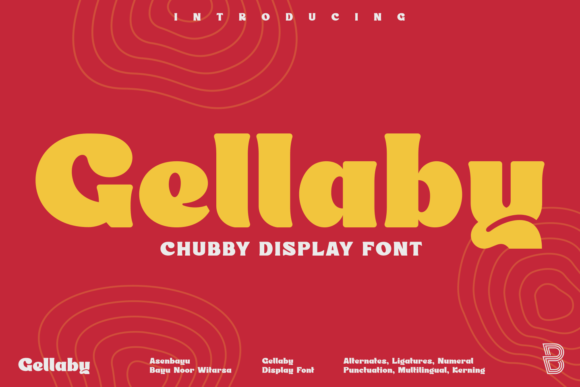
Gellaby Font: The Ultimate Bold Semi-Serif Display Font for Creative Designs
Are you looking for a font that can add a touch of uniqueness and playfulness to your designs? Look no further than the Gellaby font. This bold semi-serif display font is perfect for creating retro, vintage, modern, and playful designs that stand out from the crowd. In this article, we’ll explore the features and benefits of the Gellaby font, and how you can use it to take your designs to the next level.
What is Gellaby Font?
Gellaby is a bold semi-serif display font that boasts a unique and chubby shape. Its distinctive design makes it perfect for use in a variety of projects, including branding, product labels, poster displays, logo designs, magazines, headlines, stickers, and more. The font’s bold and semi-serif features make it highly legible, even at large sizes, making it ideal for creating eye-catching headlines and titles.
Key Features of Gellaby Font
- Bold and Semi-Serif Design: Gellaby’s bold and semi-serif design makes it perfect for creating eye-catching headlines and titles that demand attention.
- Unique and Chubby Shape: The font’s unique and chubby shape gives it a playful and distinctive look that’s sure to stand out from the crowd.
- Retro, Vintage, Modern, and Playful: Gellaby’s versatility makes it perfect for use in a wide range of design styles, from retro and vintage to modern and playful.
- Highly Legible: The font’s bold and semi-serif features make it highly legible, even at large sizes.
Use Cases for Gellaby Font
Gellaby font is perfect for a wide range of design projects, including:
- Branding: Use Gellaby to create bold and eye-catching logos that make a statement.
- Product Labels: The font’s bold and semi-serif design makes it perfect for use on product labels, where legibility is key.
- Poster Displays: Gellaby’s unique and chubby shape makes it perfect for use in poster displays, where you want to grab attention.
- Logo Designs: The font’s bold and semi-serif features make it ideal for creating logos that are both modern and playful.
- Magazines: Use Gellaby to create eye-catching headlines and titles that draw readers in.
- Headlines: The font’s bold and semi-serif design makes it perfect for use in headlines, where you want to make a statement.
- Stickers: Gellaby’s playful and distinctive look makes it perfect for use on stickers, where you want to add a touch of personality.
Benefits of Using Gellaby Font
There are many benefits to using Gellaby font in your designs, including:
- Increased Legibility: The font’s bold and semi-serif design makes it highly legible, even at large sizes.
- Improved Brand Recognition: Gellaby’s unique and chubby shape makes it perfect for creating bold and eye-catching logos that make a statement.
- Enhanced Creativity: The font’s versatility makes it perfect for use in a wide range of design styles, from retro and vintage to modern and playful.
- Time-Saving: Gellaby font is easy to use and can save you time in your design projects.
Tips for Using Gellaby Font
Here are some tips for getting the most out of Gellaby font:
- Use it Boldly: Gellaby font is designed to be used boldly, so don’t be afraid to experiment with large sizes and bold colors.
- Experiment with Colors: The font’s bold and semi-serif design makes it perfect for use with a wide range of colors and textures.
- Pair it with Other Fonts: Gellaby font pairs well with a wide range of other fonts, so feel free to experiment with different combinations.
- Use it Consistently: To get the most out of Gellaby font, use it consistently across your design projects.
In conclusion, Gellaby font is a bold semi-serif display font that is perfect for creating retro, vintage, modern, and playful designs. Its unique and chubby shape makes it highly legible and perfect for use in a wide range of design projects, from branding and product labels to poster displays and logo designs. With its versatility, bold and semi-serif design, and highly legible features, Gellaby font is a great addition to any designer’s toolkit.
- What is Gellaby font? Gellaby font is a bold semi-serif display font with a unique and chubby shape.
- What is Gellaby font used for? Gellaby font is perfect for use in a wide range of design projects, including branding, product labels, poster displays, logo designs, magazines, headlines, stickers, and more.
- Is Gellaby font easy to read? Yes, Gellaby font is highly legible, even at large sizes, making it perfect for use in headlines and titles.